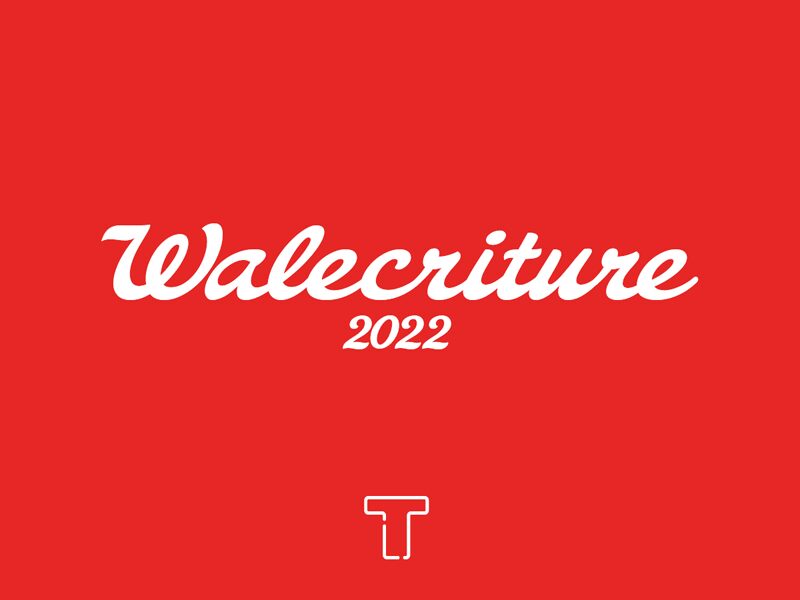
Walecriture, designed by LyonsType, is a bold and semi-expanded font with a smooth brush style. With its retro touch, this font is perfect for a wide range of creative projects.
Its bold weight and smooth brush strokes make it ideal for designing eye-catching logos and branding materials. The semi-expanded width adds elegance to titles and headings in editorial designs such as magazines and posters. Additionally, Walecriture's retro aesthetic brings a nostalgic feel to packaging designs, invitations, and vintage-inspired websites.
A typeface based on the Walgreens wordmark.